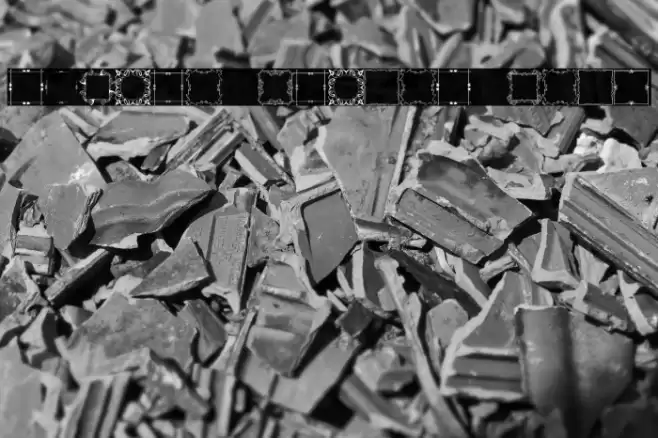
Square Frames Demo Font
Square Frames Demo Description
This design features a series of ornate and decorative square frames, each with unique embellishments and intricate patterns. The frames vary in complexity, with some showcasing elaborate scrollwork and floral motifs, while others are simpler with clean lines. These frames are ideal for adding a touch of elegance and sophistication to any project. The design is versatile, suitable for both digital and print media, and can be used to highlight important content or create visually appealing borders.
Ornate and decorative square frames with intricate patterns from Dingbats fonts.
- Proposed Projects: These frames are perfect for invitations, certificates, scrapbooking, digital art projects, and decorative borders in print media.
- Use Case: Borders, Decorative elements